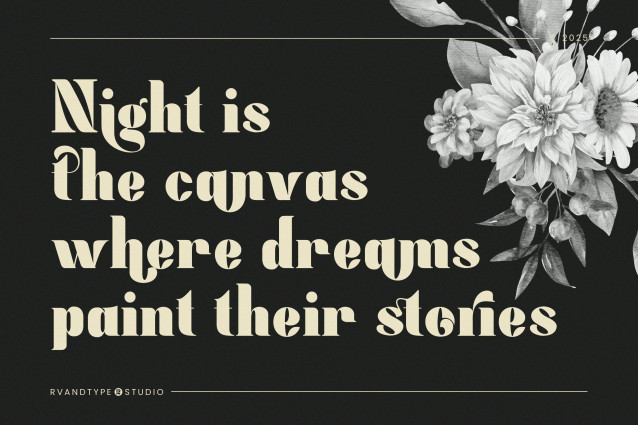
Spancer Serif Font
Spancer Modern Serif Typeface, simple and powerfull. come with some simple Alternates for covering your Project, like Branding, Movie Title, Headline Letter, Bookcover or Book Content, Magazine cover, Poster, Quotes Lettering, Logos, and more your project design.
Designer Name: | inumocca_type |